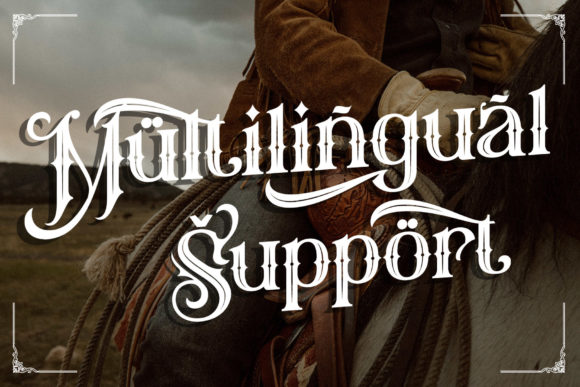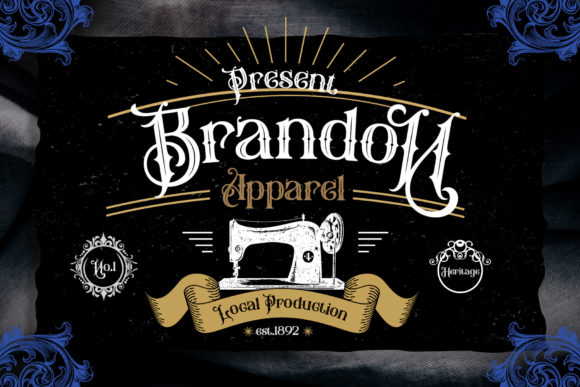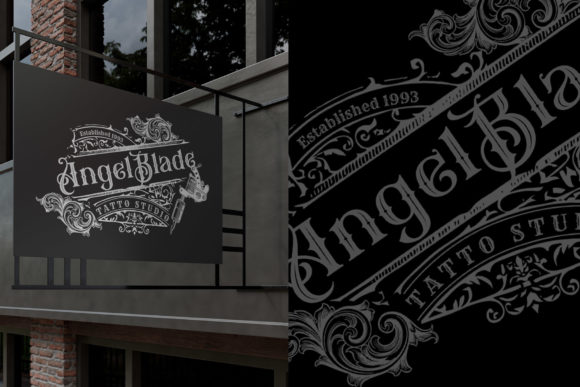
Introduction to Slacksluger Font
Have you ever found yourself stuck on a creative project, desperately searching for the perfect design element to give it that extra oomph? That’s exactly what happened to us when we stumbled upon the Slacksluger Font – a game-changing addition to any designer’s arsenal.
As a go-to design resource, Slacksluger Font offers a level of detail and drama that’s hard to find elsewhere. Its bold, blackletter style is sure to command attention and evoke the perfect atmosphere for your next project. Whether you’re working on a design that requires a transparent background or a high-quality visual that demands a touch of sophistication, Slacksluger Font is the perfect choice.
Key Features of Slacksluger Font
- High-quality design resource perfect for creative projects requiring a unique touch.
- Transparent background option allows for seamless integration with various design elements.
- Available in a range of sizes, from 12 to 72 points, making it suitable for various design applications.
- Designed with a high-resolution output in mind, ensuring crisp and clear text at 300 DPI.
- Unique characteristics include a bold and playful feel, making it ideal for modern and creative designs.
- Perfect for designers seeking a free, high-quality font for their next creative project.
Honest Review: Slacksluger Font
I recently came across the Slacksluger Font, and I must say it’s a unique addition to any design project. The font’s bold and playful style makes it perfect for creative projects where you want to add a touch of personality.
- What works well: The font’s transparent background makes it easy to customize and layer with other design elements. The variety of styles and weights also gives designers a lot of flexibility when choosing the perfect look for their project.
- What works well: The free download option makes it an excellent resource for designers on a budget. The high quality of the font is evident in its crisp lines and smooth typography.
However, there are some limitations to consider. The font may not be suitable for formal or professional projects, as its playful style can come across as unprofessional.
Overall, I would give the Slacksluger Font 4 out of 5 stars. It’s a fun and creative addition to any design project, and its free download option makes it a valuable resource for designers. However, its limitations should be carefully considered before using it in a project.
The Slacksluger Font is a high-quality, free download that offers a unique and creative design resource for your next project. This font features a transparent background, making it perfect for use in various design applications.
Experiment with different font sizes and styles to add visual interest to your design. Use the transparent background to create unique and eye-catching effects.
The Slacksluger Font is perfect for use in creative projects, such as logos, graphics, and social media posts. Its unique design and transparent background make it a versatile design resource for any project.
What makes the Slacksluger Font a high-quality design resource?
The Slacksluger Font is a high-quality design resource due to its precise vector design, high-resolution glyphs, and comprehensive character set. Its clean and modern aesthetic makes it an ideal choice for a wide range of creative projects, from digital interfaces to print materials.